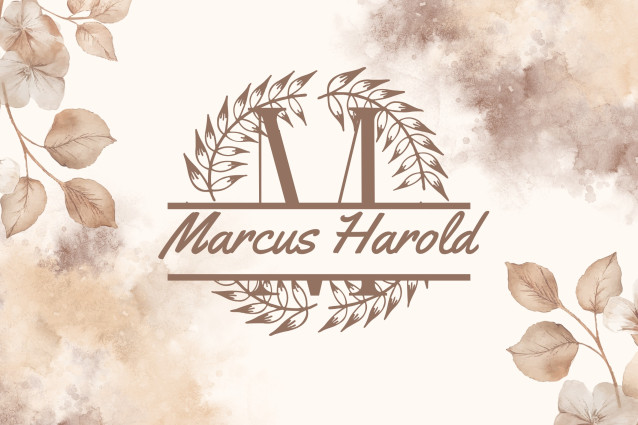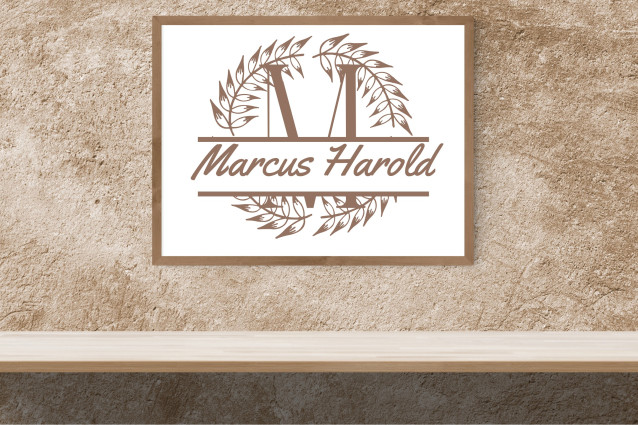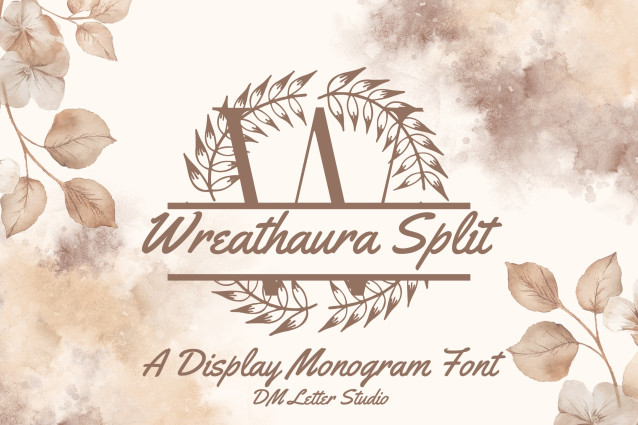
Wreathaura Split Monogram Font
Wreathaura Split Monogram Font is a charming and whimsical split-letter font, framed by airy hand-drawn wreaths. Each uppercase character features a clean split across the middle, designed for easy customization with names, dates, or initials. Blending fantasy and elegance, this font is ideal for wedding signs, nursery prints, personalized gifts, branding, and seasonal crafts that call for a soft, botanical touch.